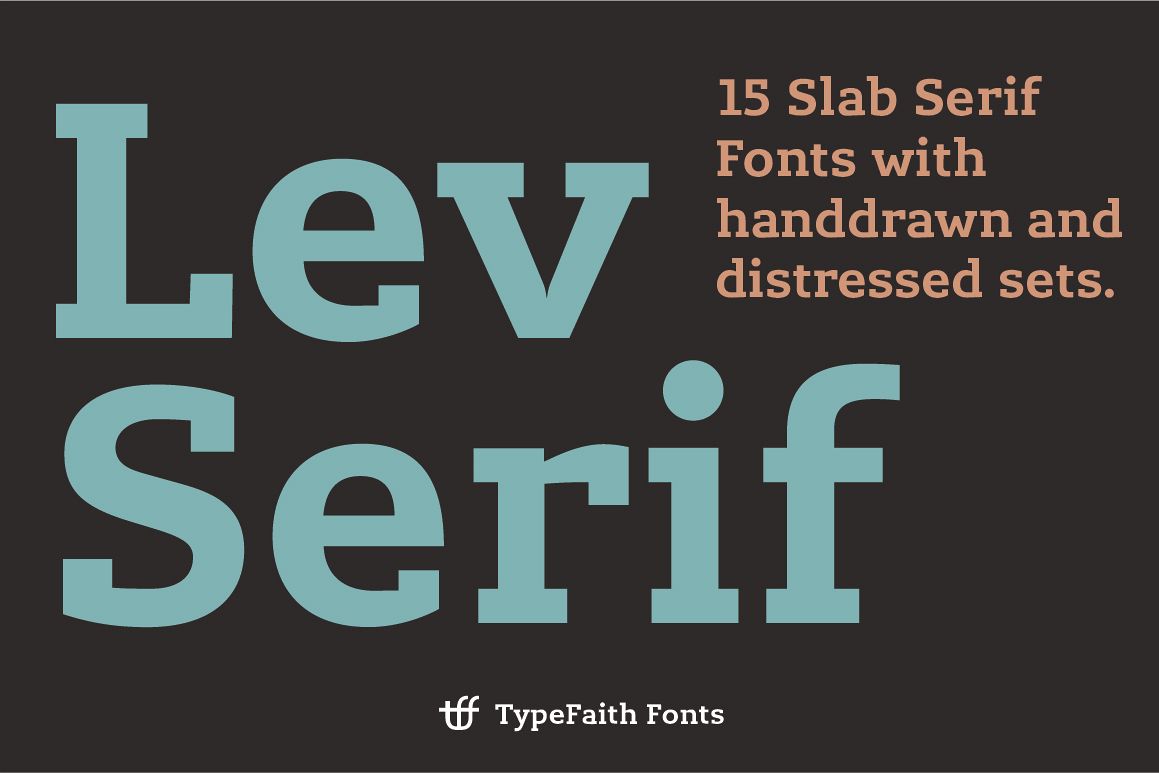
Lev Serif
Lev is a slab serif font, the rectangular serifs and the straight angled shoulders and links contrasting the curves and loops. Lev Serif is characterized by thick, block-like serifs. Lev is designed by Leon Hulst. 14 high quality fonts.